Mix Loudmouth
Mix Loudmouth is scrappy. Hand-drawn, rough around the edges, and makes no apologies for either. But set a word in it and something unexpected happens — every letter falls into the next like it was written that way on purpose. Natural and unclean, but somehow still polished. Each letterform has its own weight and width. Set […]
Mix Cosmic Skeptic
COSMIC SKEPTIC is loud on purpose. Bold, chunky hand-lettering with thick uneven strokes and a wobbly organic baseline, built for anything that needs to shout without yelling: patches, stickers, merch, signage, packaging, headlines. This font also carries full extended Latin support, accented characters, currency symbols, and typographic punctuation included, so it holds up for multilingual […]
Mix Block Label
Discover BLOCK LABEL, a meticulously crafted sans serif display font tailored for impactful packaging design. Bold, blocky, and wholly handwritten, BLOCK LABEL strikes the perfect balance between strength and sophistication, ideal for makers seeking to elevate their brand presence. With its clean lines and versatile character set, BLOCK LABEL offers multilingual support and complete characters, ensuring […]
Mix Manual Marquee
When you need a handpainted sign, this is the one to use. Manual Marquee is inspired by handpainted signs, retro ticket stubs, coffee shop menu boards, and flea market price tags. The font has multilingual support, including not just basic letters and punctuation but also a whole slew of accented glyphs to accommodate all languages. […]
Mix Safari Squad
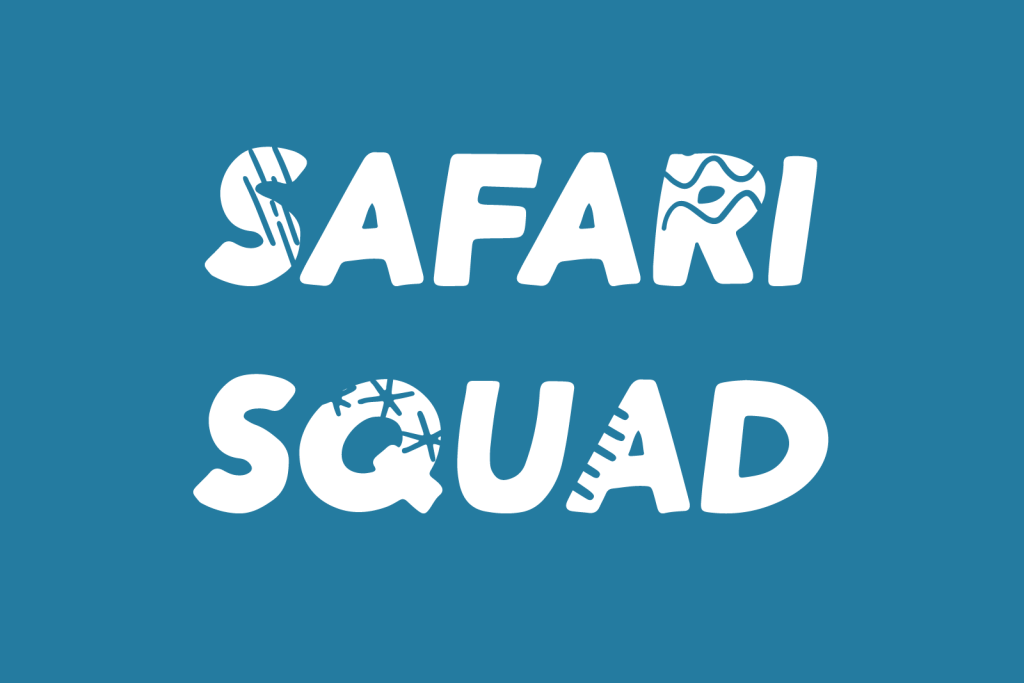
Introducing SAFARI SQUAD, the bold and stylish font perfect for making a statement. With its solid and italicized design, this font is perfect for creating impactful and attention-grabbing headlines and logos. The unique selling point of SAFARI SQUAD is the quirky stylized animal print alternates for the uppercase and lowercase letters, which add a touch […]
Mix Live
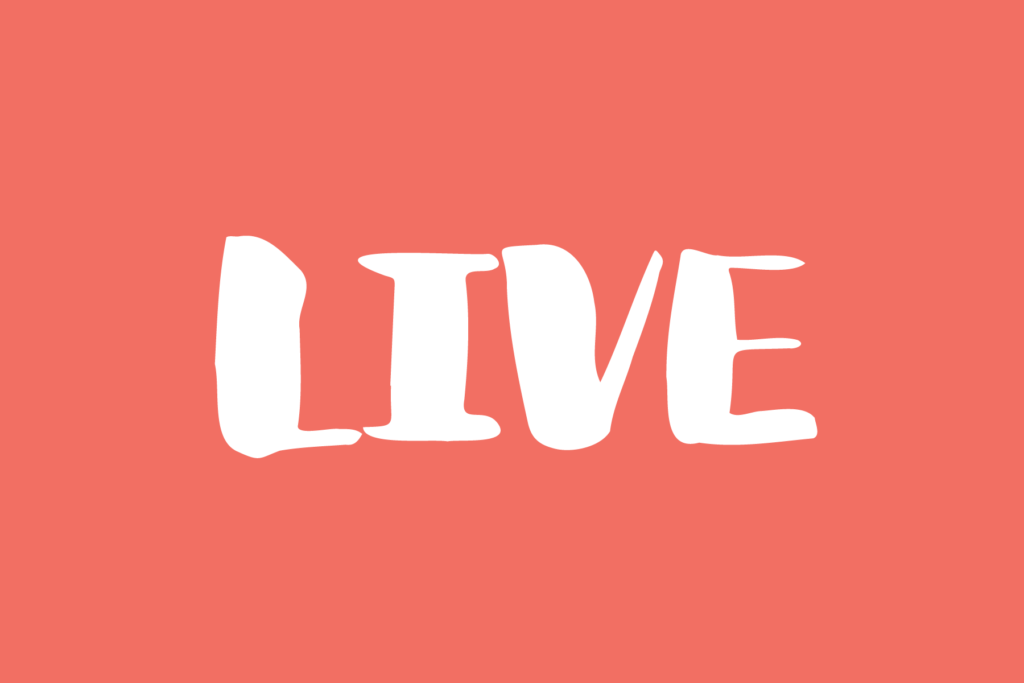
MIX LIVE is a very fun, quirky, off-kilter all-uppercase handwritten font. This handdrawn typeface is perfect for social media graphics, edgy posters, and bold headlines. Match the font with any of the accompanying loopy doodled elements will just give your art that added bit of cute. MIX LIVE includes the following characters: ABCDEFGHIJKLMNOPQRSTUVWXYZ abcdefghijklmnopqrstuvwxyz 0123456789
Mix Bold
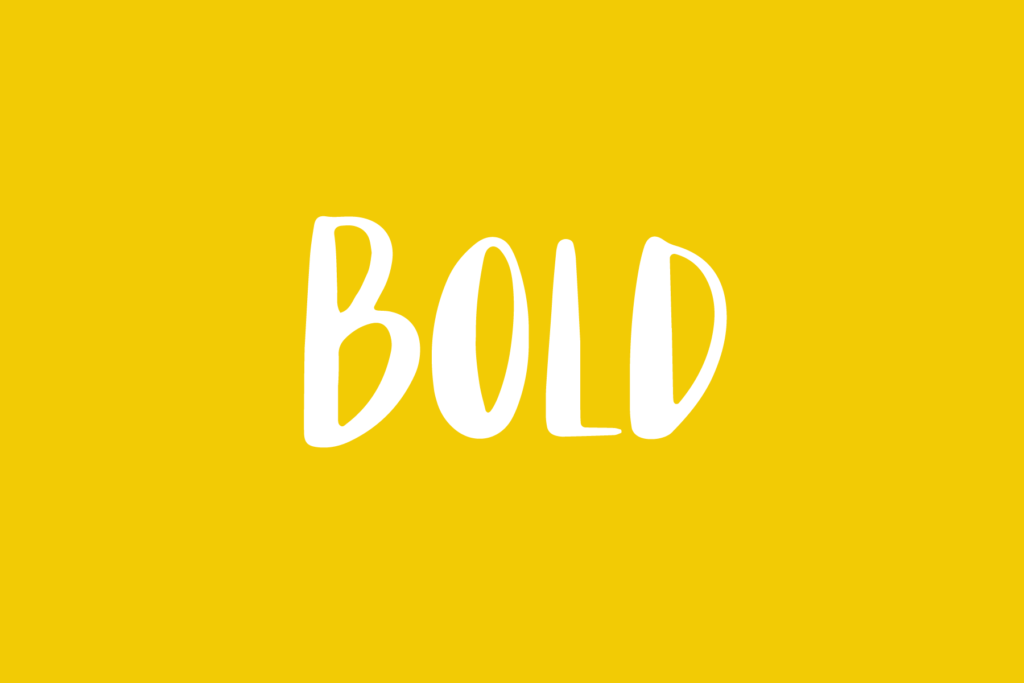
Start a blog, draw posters for your band, or just captivate a crowd with your skill at stylish writing and bold typefaces! MIX BOLD is a basic all-uppercase digitally handwritten font. Mix Bold includes the following characters: ABCDEFGHIJKLMNOPQRSTUVWXYZ abcdefghijklmnopqrstuvwxyz 0123456789 !@$#%^&*()`~ +=[]:;’”,.|/?{}<>“”‘’-–—_₱¢€£¥©®™«»°♥❤•
Mix Prints
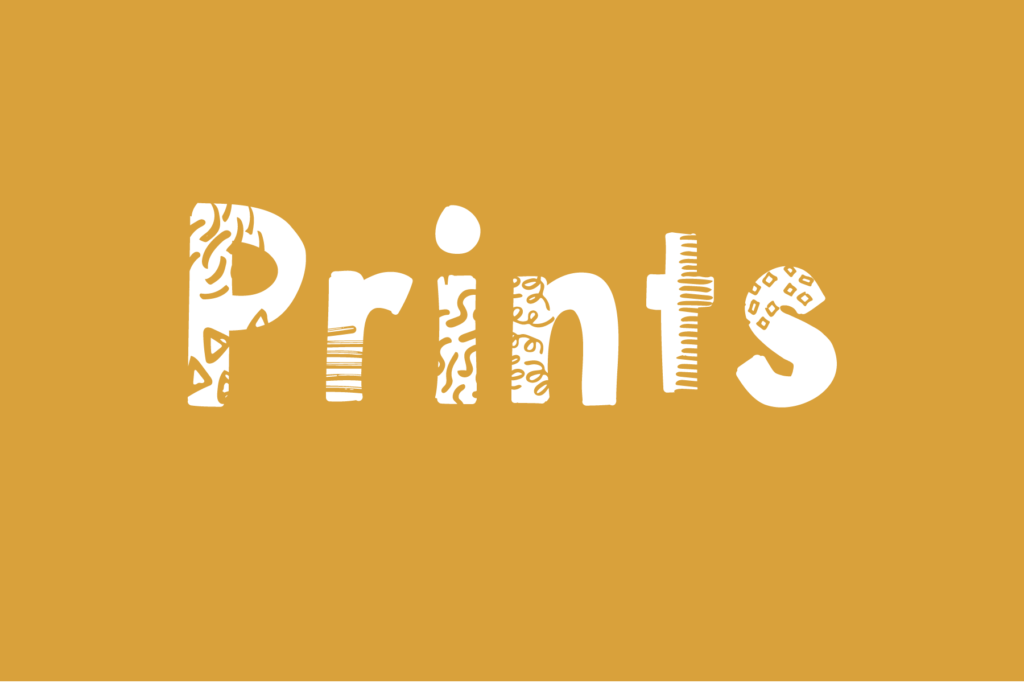
Mix Prints is a handwritten sans serif, slapped with all sorts of patterns and prints. All the dots, dashes, shapes, spots and stripes come from THIS PATTERN BUNDLE HERE. Mix Prints includes the following characters: ABCDEFGHIJKLMNOPQRSTUVWXYZ abcdefghijklmnopqrstuvwxyz 0123456789 !@$#^&*() `~+=[]:;’”,.|/?{}“”’-_
Mix Festival & Mix Festival Mop
Mix Festival was handwritten on Procreate for iPad Pro with an Apple Pencil. The quick doodles were converted into this pair of fonts. This font is perfect for handmade and DIY themed projects. Mix Festival, includes Mix Festival Mop, an OpenType SVG Font file. This font type maintains all the details, color, and texture that the […]
Mix Fuerte
Mix Fuerte was written on an iPad Pro with an Apple Pencil, using the Marker brush from my Procreate Brush Bundle. The characters were then digitized, cleaned up, and converted into a font. Upright and disconnected, with real ink texture in every letter, this one means business. Mix Fuerte includes the following characters: ABCDEFGHIJKLMNOPQRSTUVWXYZ abcdefghijklmnopqrstuvwxyz 0123456789 […]
Mix Blimp
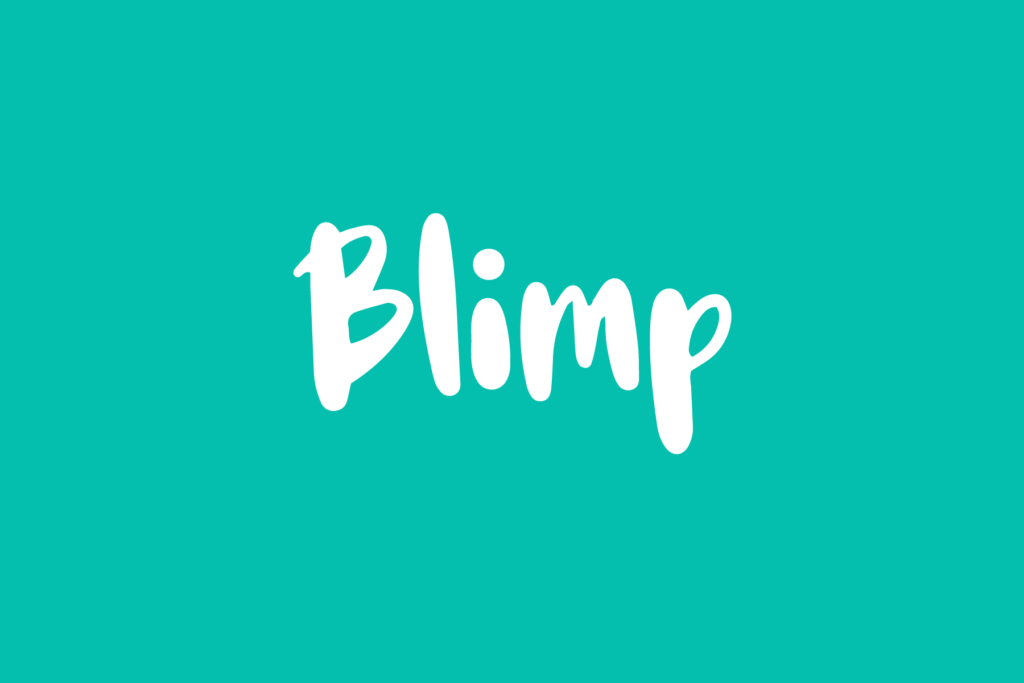
Introducing BLIMP – a fun, playful, and charming handwritten font. Ideal for adding a personal touch to your social media posts, quotes, packaging, digital crafts, greeting cards, marketing materials, and more. This font was created using an iPad Pro and Apple Pencil for a truly authentic, digital handwriting style. Don’t let boring fonts weigh you […]
Mix Java
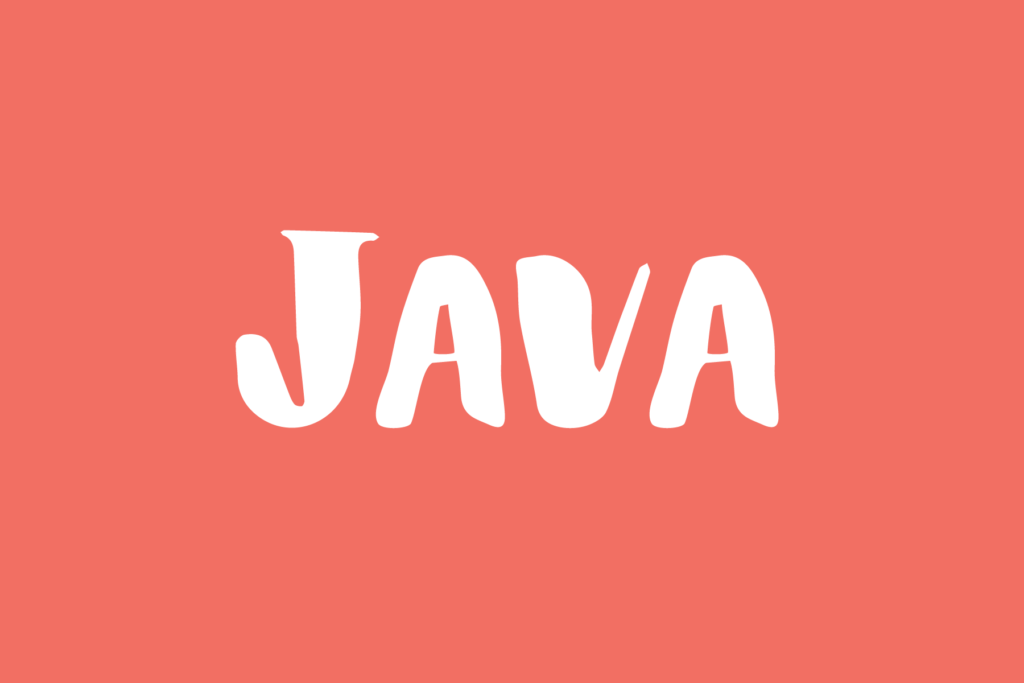
Mix Java is your street corner café’s chalkboard menu scrawls. Mix Java includes the following characters: ABCDEFGHIJKLMNOPQRSTUVWXYZ abcdefghijklmnopqrstuvwxyz 0123456789 !@$#%^&*() `+=[]:;’”,.|/?<>“”‘’-–_
Mix Yonder
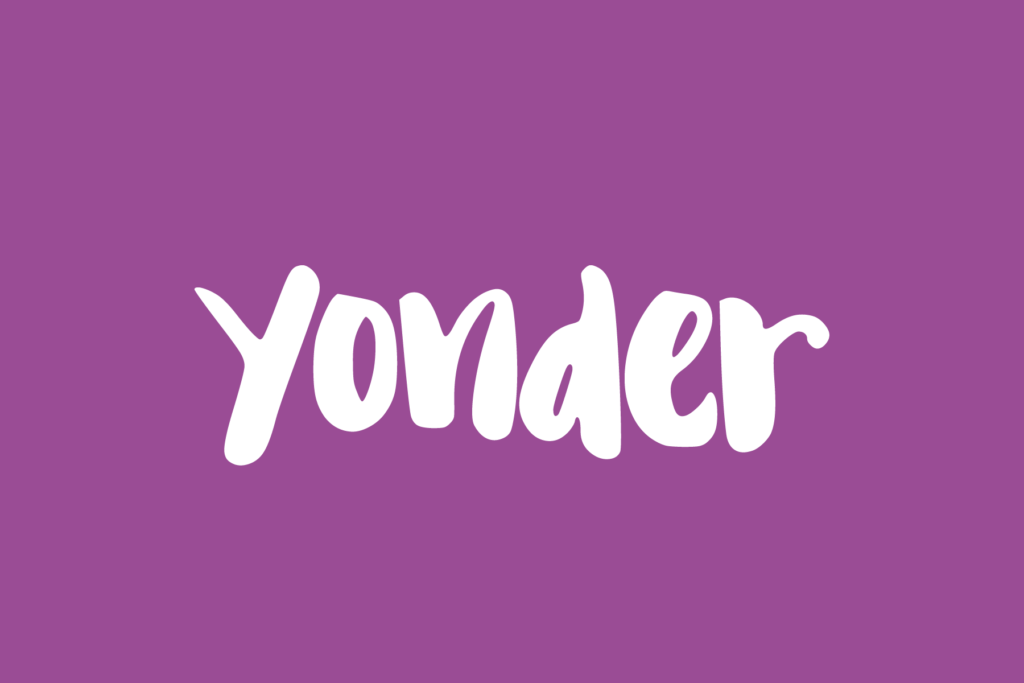
Mix Grungy
Get this font as part of the Mix Drybrush Opentype SVG + Colored SVG + Vector font bundle. Mix Grungy is the (original) vector counterpart of the OpenType SVG font Mix Drybrush. It resembles scrawls and scribbles on the coffee shop blackboard down the corner. ABCDEFGHIJKLMNOPQRSTUVWXYZ abcdefghijklmnñopqrstuvwxyz 0123456789 !@$#%^&*() `~ ♥❤+=[]:;’”,.|/?{}<>“”‘’-–_…«»°¡¿₱¢¥
Mix Brush
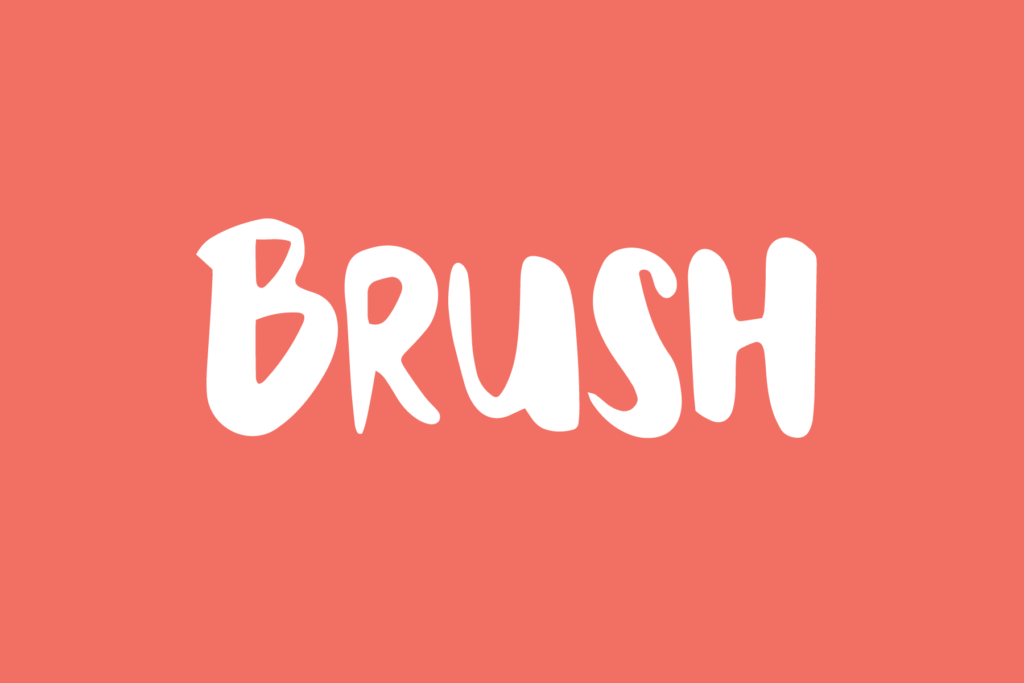
Mix Brush is a non-calligrapher’s attempt at brush lettering, and it works. Thick, uneven strokes and a bold uppercase build give it real handmade brush character without requiring actual brush-lettering skill to use it well. Built for anything that needs to look handmade and mean it, from t-shirts to packaging to signage. Includes the full […]